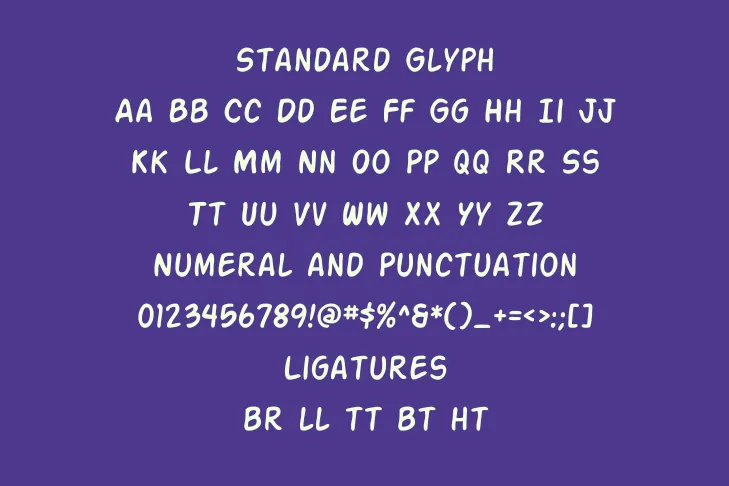
Action Man Font is a fancy texture typeface that has very unconditional characters. This font style was designed by a very well-known foundry named Iconian Fonts. This font is only free for personal use.
It comes in 10 unique variations Action Man, Action Man Italic, Action Man Bold, Action Man Bold Italic, Action Man Shaded, Action Man Shaded Italic, Action Man Extended, Action Man Extended Bold Italic. Its regular style contains 201 unique glyphs including upper and lowercase letters, punctuations, symbols, ligatures, and swashes.